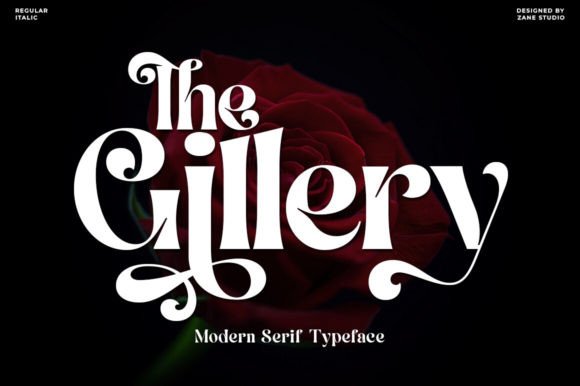
Introducing The Gillery Font, the ultimate serif typeface that will elevate your designs and captivate your audience. Created by Zane Studio, this modern serif font is the perfect choice for anyone looking to make a statement with their typography.
With its expressive and feminine aesthetic, The Gillery Font is the go-to option for creating striking logos and branding materials. Its versatility allows you to experiment with different alternatives and ligatures, enabling you to craft the perfect typography design that truly represents your brand.
Are you in need of a font that exudes luxury and sophistication? Look no further. The Gillery Font is tailor-made for elegant editorial designs, making it the ideal choice for women's magazines and cosmetic brands. Its timeless appeal will leave a lasting impression on your readers and customers.
But that's not all. The Gillery Font is also a fantastic choice for art-related projects. Whether you're designing for art galleries, museums, or architectural history publications, this font will add a touch of sophistication and class to your work. Its versatility extends to boutique branding and stationery design as well, making it a must-have for any discerning designer.
Bloggers and advertisers rejoice! The Gillery Font is perfect for modern advertising design, blog layouts, and captivating invitation cards. Its unique style will make your content stand out from the crowd and leave your audience wanting more.
Looking to add a touch of elegance to your home decor or book titles? The Gillery Font has got you covered. Its timeless beauty and artistic charm will transform any space or cover into a work of art. Special events and art quotes will come to life with this font, creating a truly unforgettable experience for your audience.
And the best part? The Gillery Font is PUA encoded, meaning you can easily access all of its amazing glyphs and ligatures. Say goodbye to complicated font downloads and hello to seamless creativity.
In conclusion, The Gillery Font is the ultimate choice for anyone looking to make a statement with their typography. Its expressive and feminine design, combined with its versatility and ease of use, make it the go-to option for luxury branding, editorial designs, and everything in between. Download The Gillery Font today and unlock a world of endless creativity.